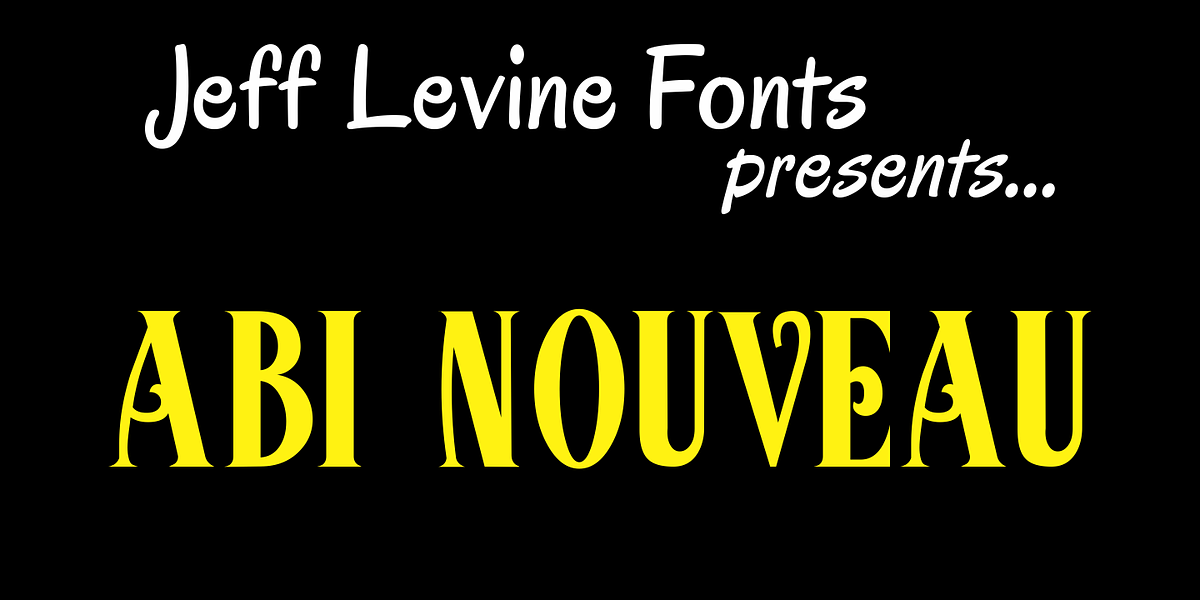
Abi Nouveau JNL
Inspired by the images on some EBay auctions, Jeff Levine sketched out and revived this early 1900s serif design used on some French sign letters. Named for a friend in the graphics industry, this font captures the charm of the Art Nouveau period.